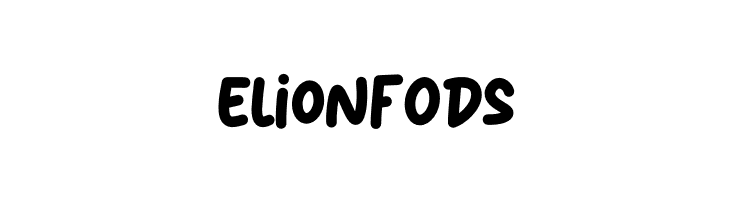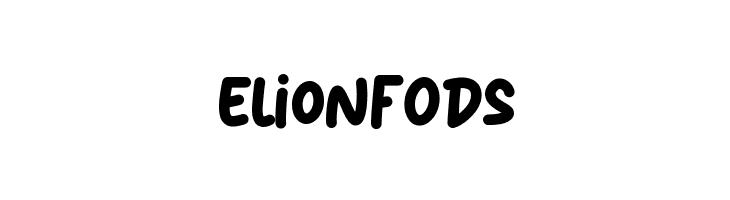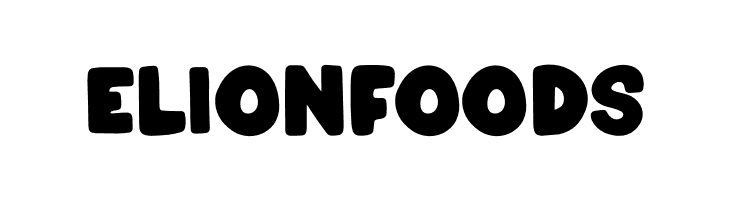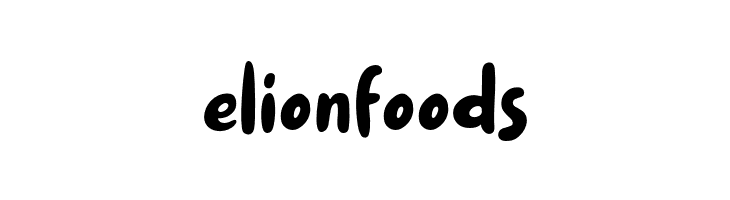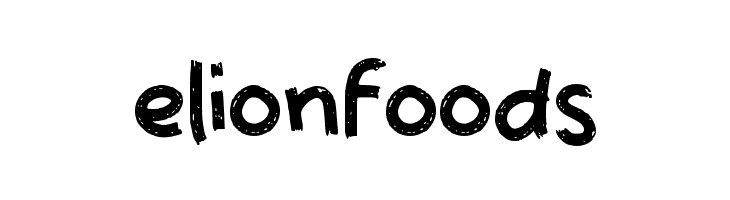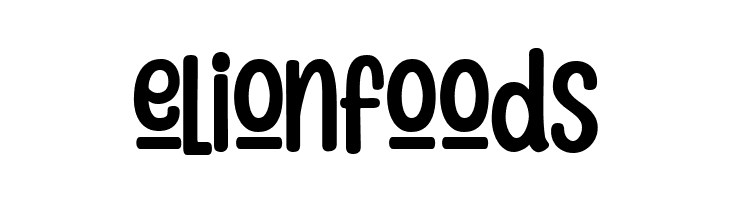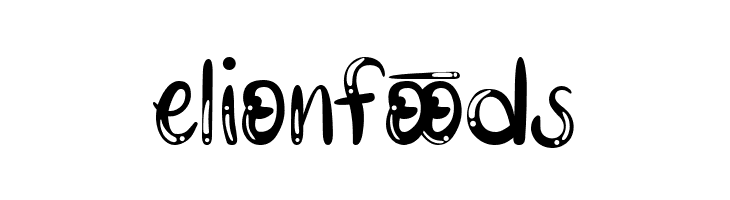
A playful, bold font with rounded, hand-drawn strokes.
A playful, bold font with rounded, thick strokes and a slightly slanted style.
A bold, rounded, and playful font with a chunky appearance.
A bold, playful handwritten font with rounded, consistent strokes.
A playful, rounded font with bold, smooth curves and a friendly style.
A playful, hand-drawn font with bold, irregular strokes and a rough texture.
A playful, bold font with rounded, bubbly characters and a hand-drawn feel.
A playful, bold font with rounded edges and a modern, friendly style.
A playful, bold handwritten font with unique cut-out circle details.